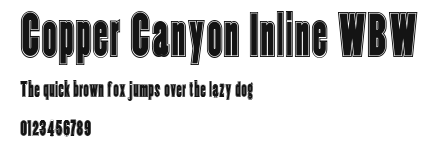
• Font Name: Copper Canyon Inline WBW
• Full Font Name: Copper Canyon Inline WBW
• Designer: Nick Curtis
• Manufacturer: Nick's Fonts
About Copper Canyon Inline WBW.ttf
Copper Canyon Inline WBW.ttf is a modern, elegant sans-serif font designed for ultimate readability and visual harmony. Perfect for branding, headlines, web design, and print materials.